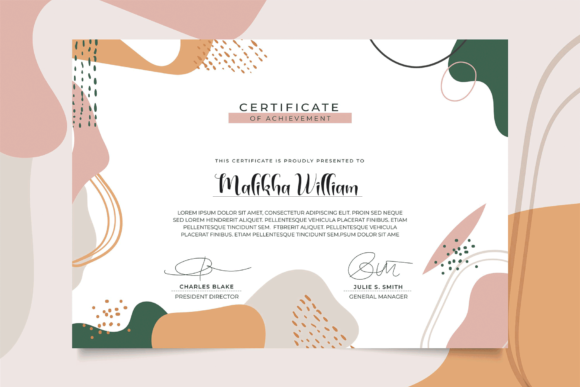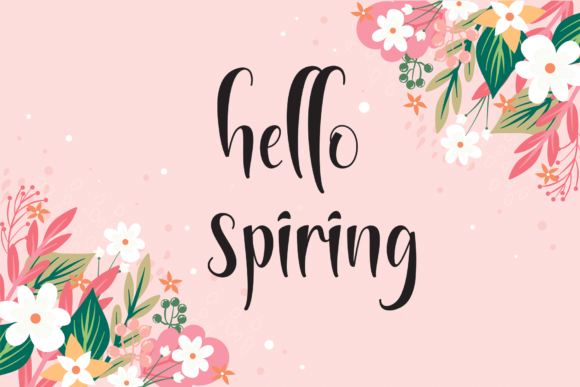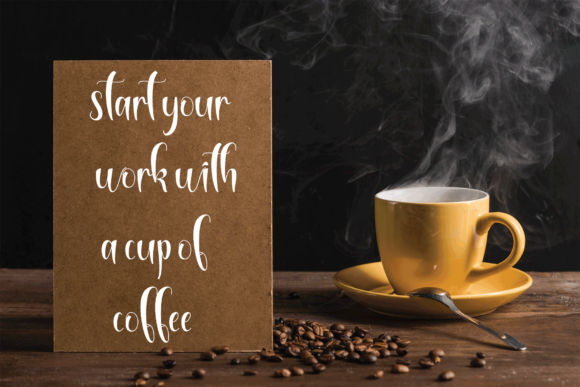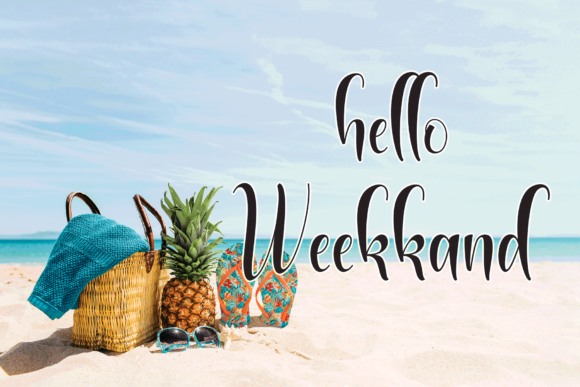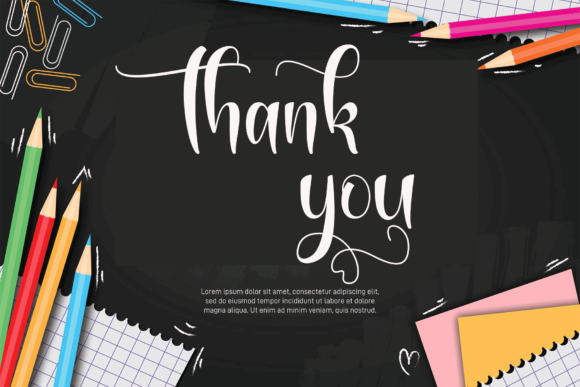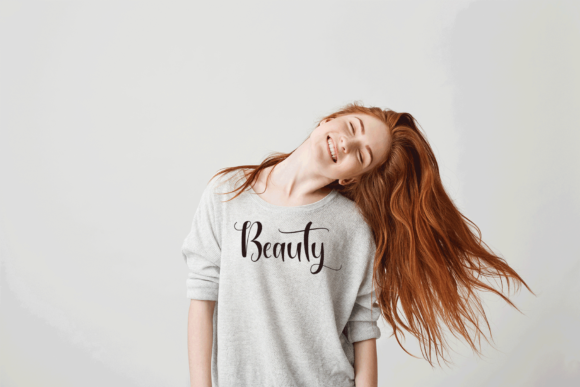
Mignolight Font
About Mignolight Font
Mignolight is an exquisite and exceptionally delicate handwritten font that exudes elegance and sophistication. With its PUA encoding, accessing all the glyphs and swashes is a breeze, adding a delightful level of flexibility to your creative endeavors. From formal projects to more casual designs, Mignolight shines as a versatile and timeless font that captivates with its graceful beauty.
The varying baseline of Mignolight adds a touch of dynamic flair to your designs, creating an eye-catching and visually appealing layout. Its smooth lines and meticulously crafted glyphs give your text a seamless and polished appearance, ensuring a stunning result in every project you undertake.
For elegant occasions such as weddings, Mignolight is the perfect choice for designing invitations, place cards, and thank-you notes. Its delicate strokes and flowing curves evoke a sense of romance and refinement, setting the tone for a truly memorable event. The font’s sophisticated charm will leave a lasting impression on guests, making it an ideal choice for special occasions.
In more casual settings, Mignolight adds a touch of understated elegance to your designs. Whether it’s crafting inspiring quotes, creating eye-catching social media posts, or designing captivating logos, this font elevates your message with a sense of poise and sophistication.
The stunning alternates available in Mignolight allow you to experiment with various letter combinations, adding a custom and personalized touch to your projects. This feature enhances the font’s versatility, enabling you to create one-of-a-kind designs that stand out and make an impact.
The beauty of Mignolight extends to digital and print media alike, making it a fantastic choice for a wide range of design applications. Its readability ensures that your message remains clear and engaging, regardless of the platform or medium.
In conclusion, Mignolight is an elegant and incredibly delicate handwritten font that possesses a timeless allure. With its PUA encoding, varying baseline, smooth lines, gorgeous glyphs, and stunning alternates, this font empowers you to create spectacular designs that leave a lasting impression. Whether you’re designing for formal events, casual occasions, branding, social media, or any other creative endeavor, Mignolight will elevate your work with its versatile style and refined beauty. Fall in love with Mignolight and experience the joy of creating captivating designs that enchant and inspire.